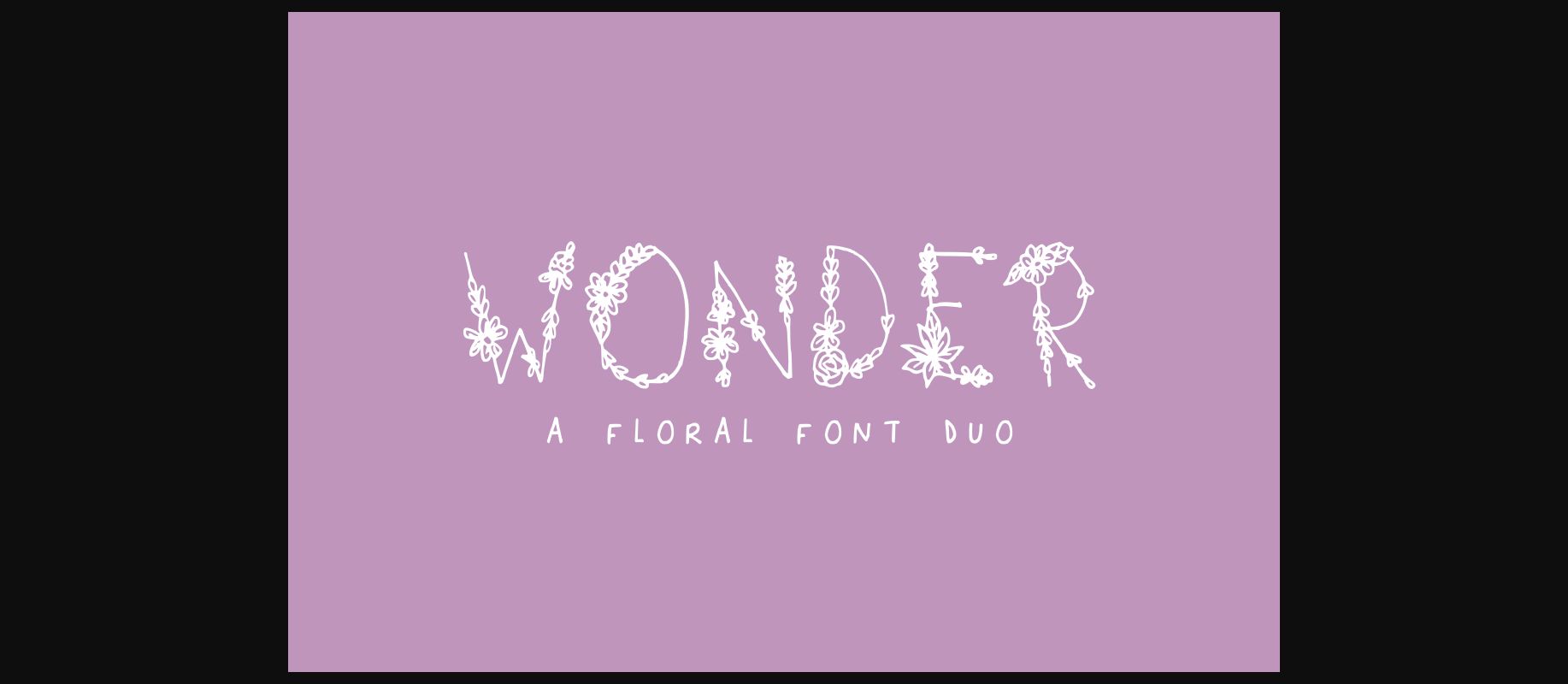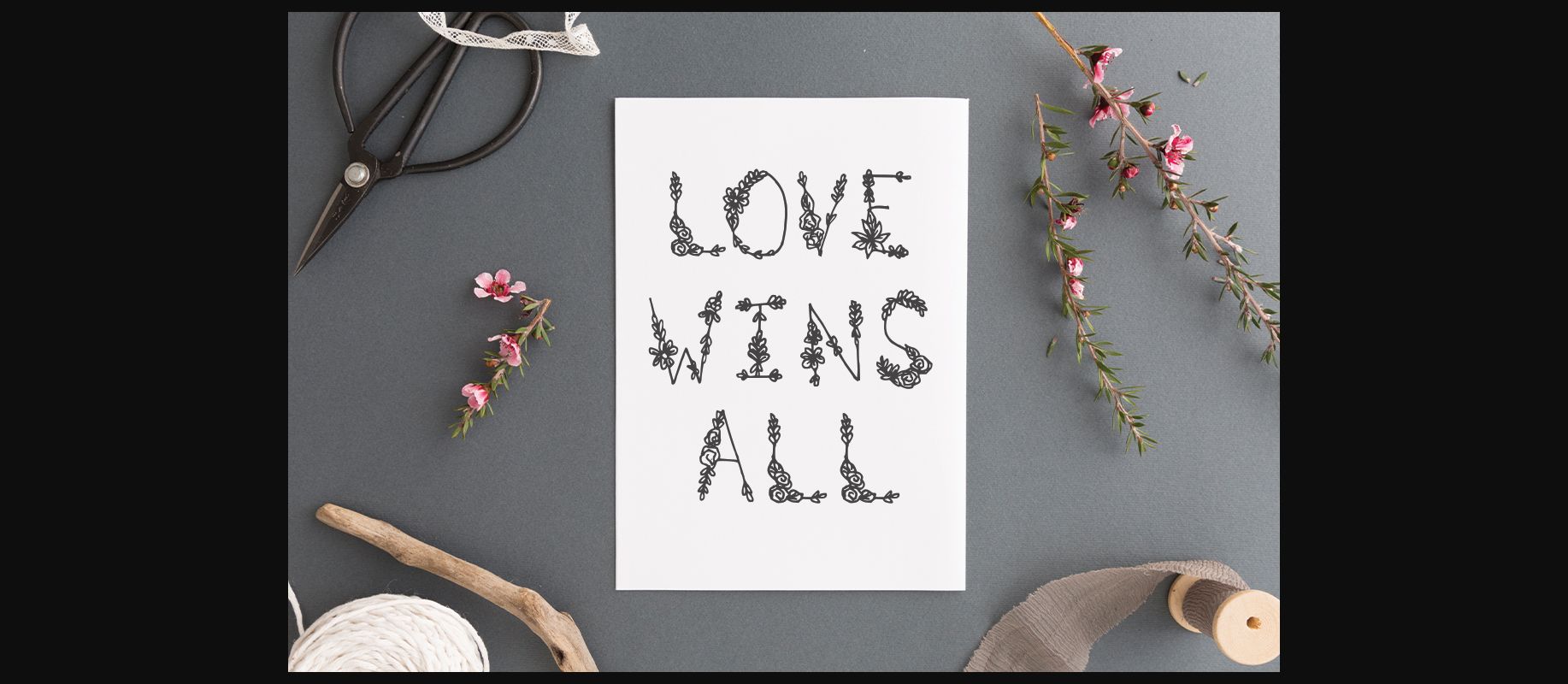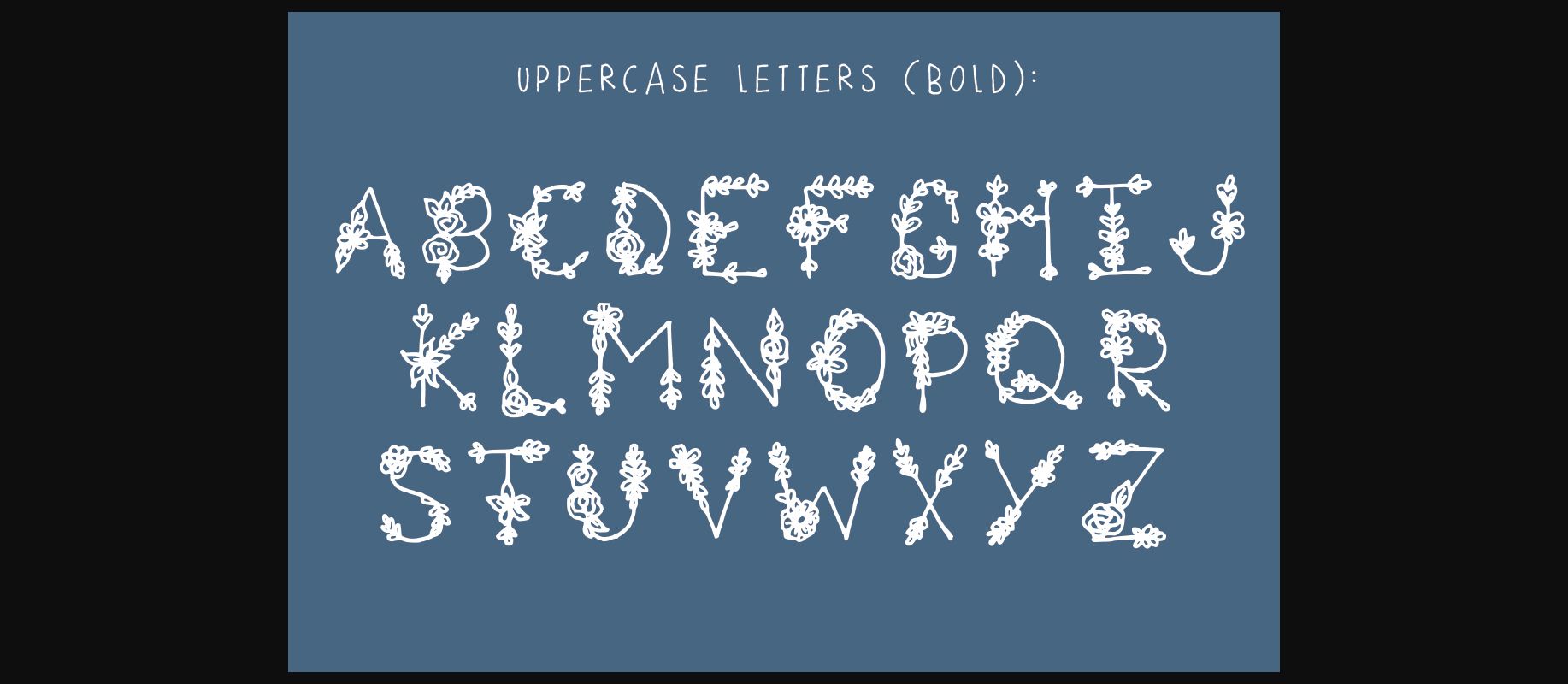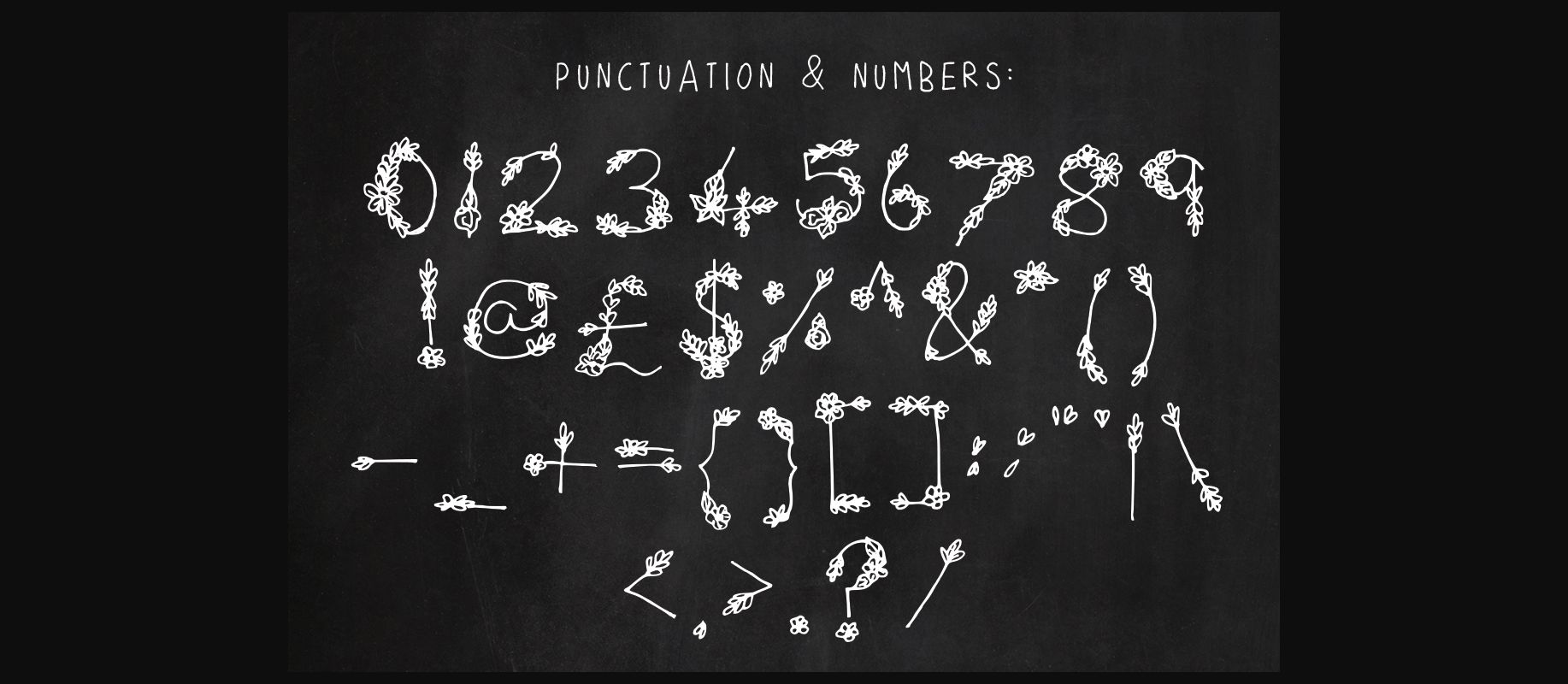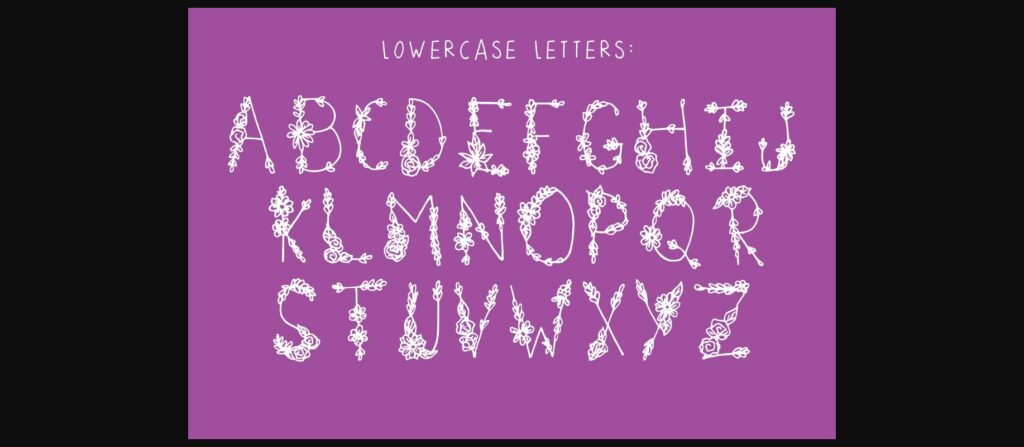
About Wonder Font
Wonder is a wondrously floral font that adds a little botanical to your designs. This decorative font is absolutely dreamy when used for wedding invitations or for any other special romantic application.